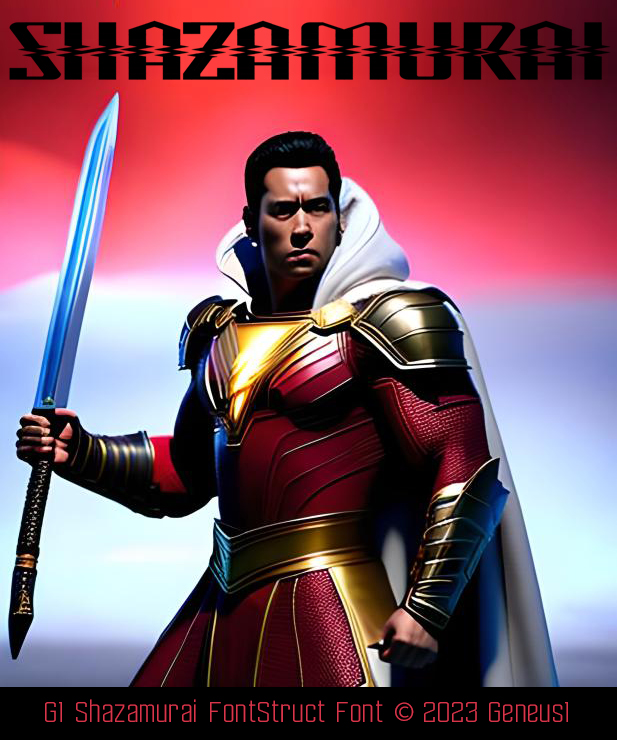
• Shazamurai! Opening day of Shazam! Fury of the Gods. Almost missed this one, but had an old lightning based font that matched. Plus, AI graphics is like soooo much cheating. WIP, couldn't decide on spacing so kerning had to wait.
Congratulations! FontStruct Staff have deemed your FontStruction worthy of special mention. “G1 Shazamurai” is now a Top Pick.
Reminds me of black listed. Good job.